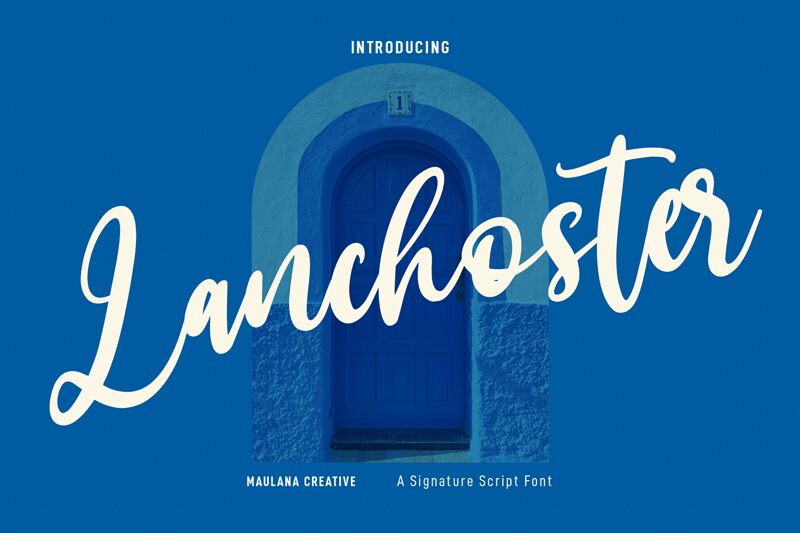
Lanchoster Free Regular
Lanchoster, designed by Maulana Creative, is a mesmerizing signature handwritten font that adds an elegant touch to any project. With its fluid strokes and unique personality, this font is perfect for branding luxury fashion boutiques or high-end cosmetic lines. Its delicate curves and exquisite details make it suitable for wedding invitations and romantic stationery. Lanchoster's versatility extends to social media graphics, where it effortlessly enhances lifestyle blogs and beauty influencer content. Whether used for packaging design or logo creation, this semi-bold typeface captures attention and evokes sophistication, making any project truly unforgettable.